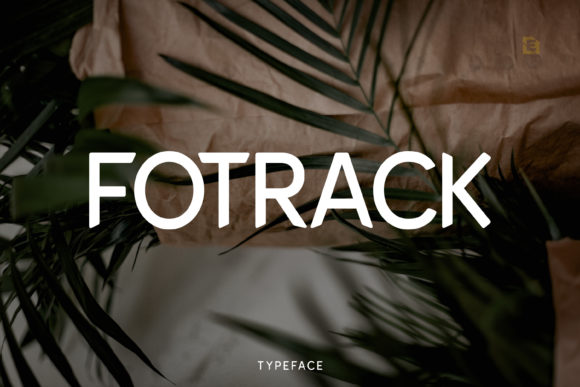
Immerse yourself in the world of captivating typography with Fotrack Typeface, a sans serif masterpiece ready to elevate your design creations. Crafted by the skilled hands of Design Stag, this font family embodies both elegance and functionality, promising to transform your projects into visual masterpieces.
Unleash your imagination with Fotrack's versatile style, seamlessly blending with your design vision. Its clean, uncluttered lines lend an air of sophistication to headings, titles, and any text that demands attention. Experience the thrill of creating visually captivating designs that resonate with your audience.
With Fotrack Typeface at your fingertips, you'll discover a world of endless possibilities. Its versatility extends from sleek and modern websites to eye-catching posters and branding materials. Let your creativity soar as you explore the myriad ways Fotrack can elevate your designs.
Step into the spotlight with Fotrack Typeface, a font that commands attention and leaves a lasting impression. Its timeless appeal ensures that your creations will stand the test of time, captivating audiences with their grace and impact. Embrace the power of captivating typography and unlock the full potential of your design endeavors.